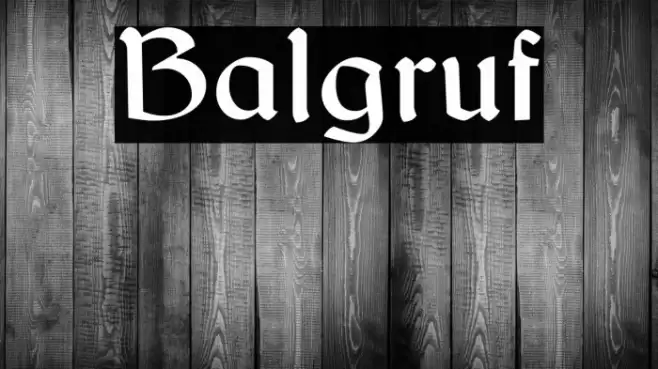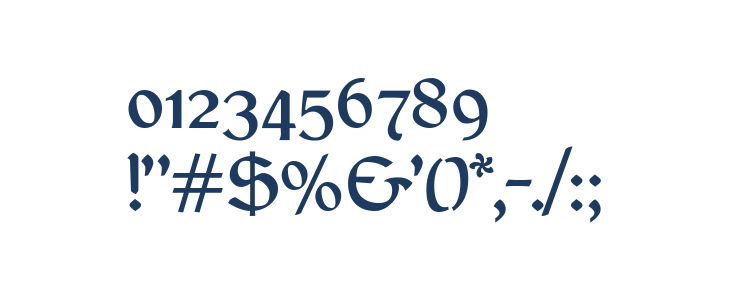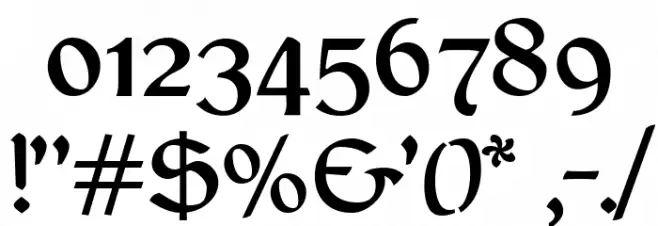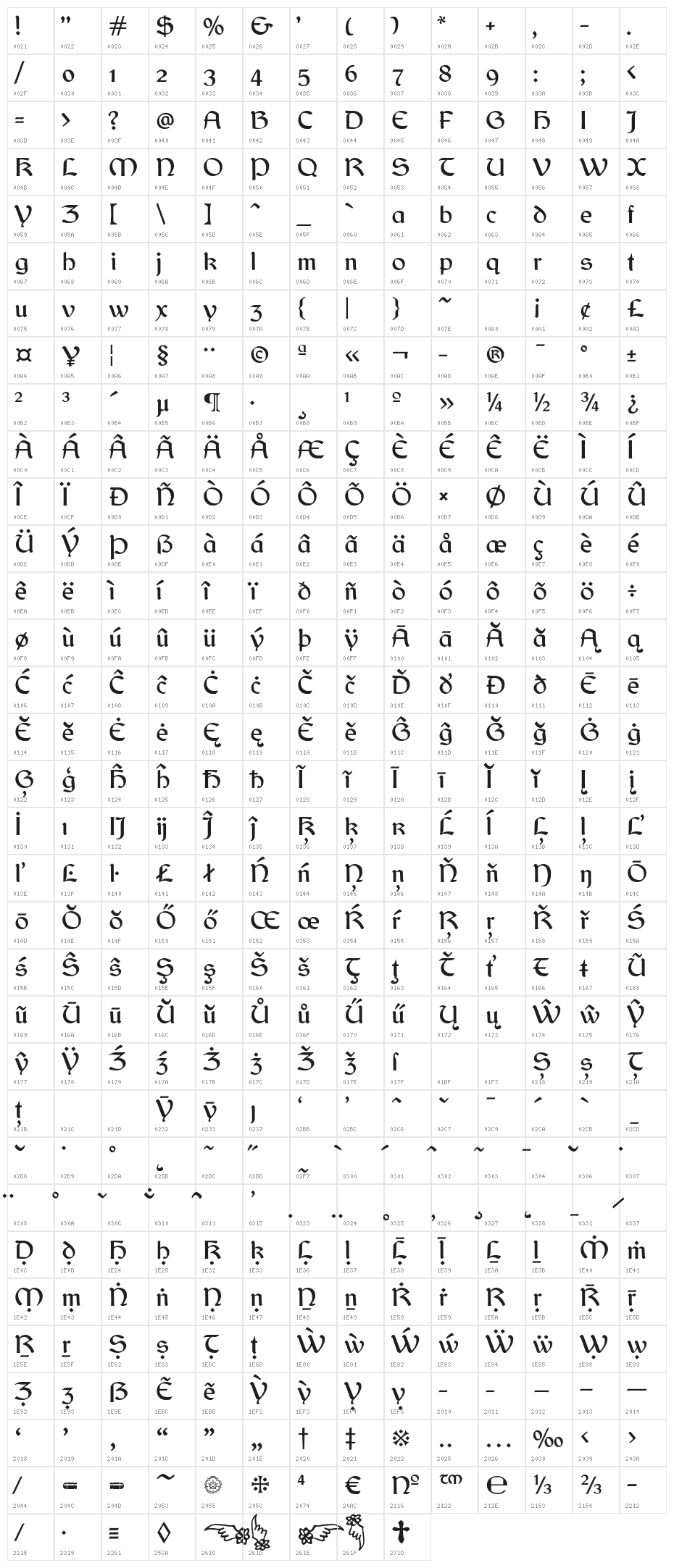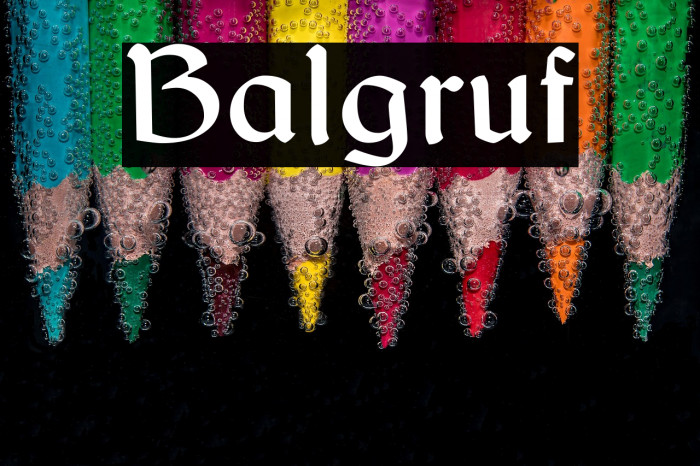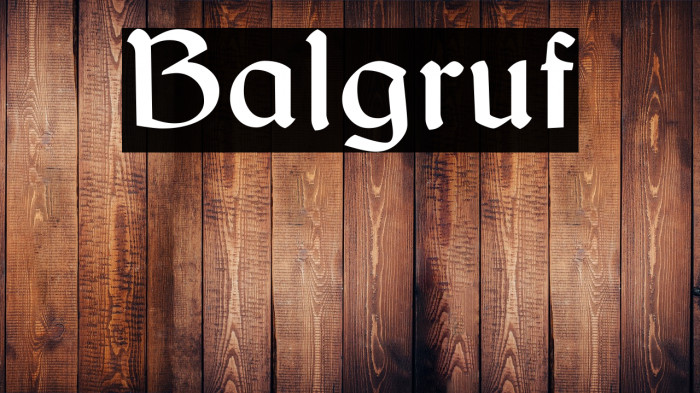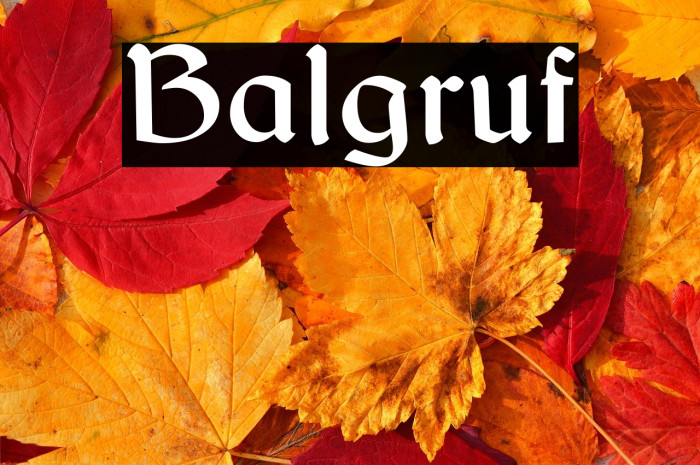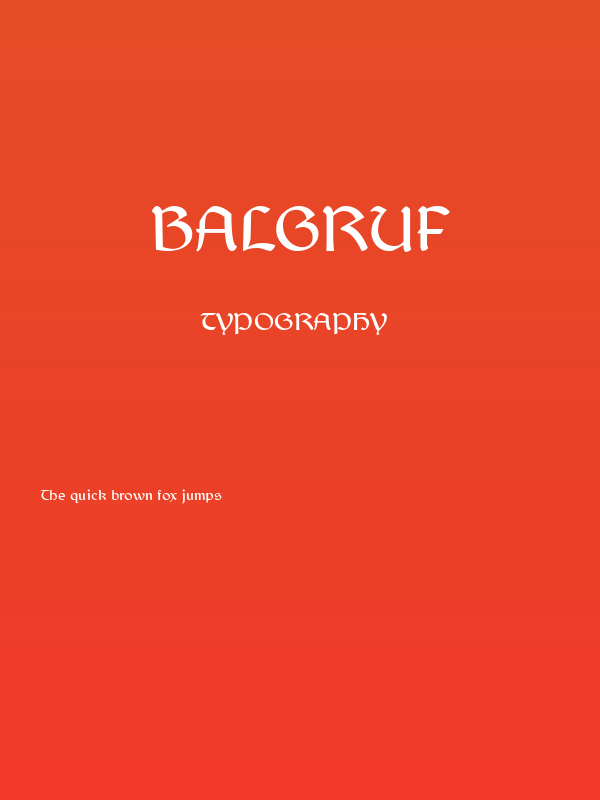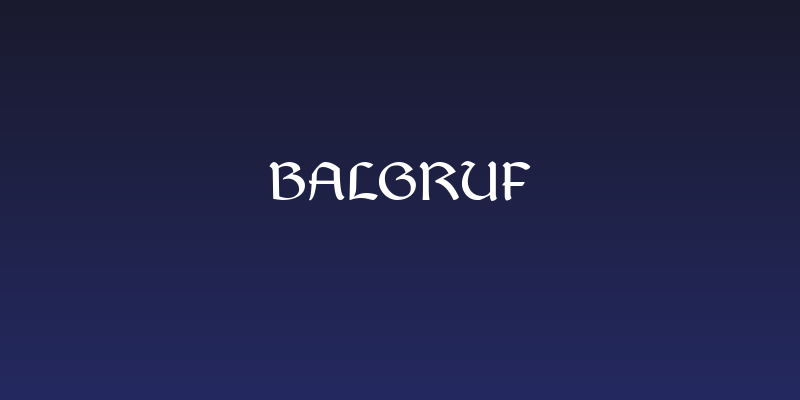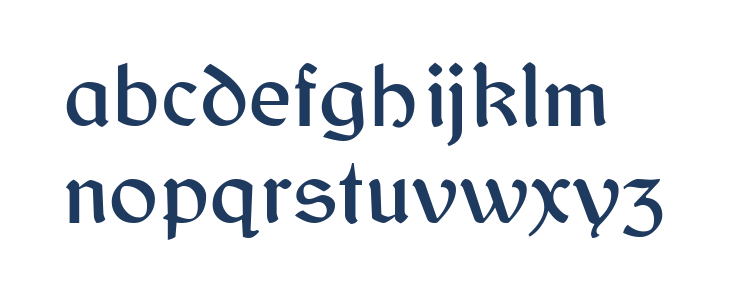
Balgruf Font
Balgruf Description
This font exhibits a classic and elegant style reminiscent of traditional blackletter typefaces. The characters are characterized by their bold, angular strokes and intricate detailing, which give them a distinct and historical appearance. The uppercase letters feature sharp serifs and a strong vertical emphasis, while the lowercase letters maintain a consistent style with slightly more rounded forms. The numerals are designed to match the overall aesthetic, with a similar weight and style. Special characters are included, maintaining the same decorative and bold characteristics. This font is ideal for projects that require a touch of historical or medieval flair, such as invitations, certificates, or branding that seeks to convey tradition and authority.
A bold, classic blackletter-style font with intricate detailing and strong vertical emphasis from Dingbats fonts.
- Proposed Projects: Ideal for historical-themed designs, invitations, certificates, and branding that requires a traditional or authoritative look.
- Overall Style: Classic
- Use Case: Headlines, Logos, Decorative text